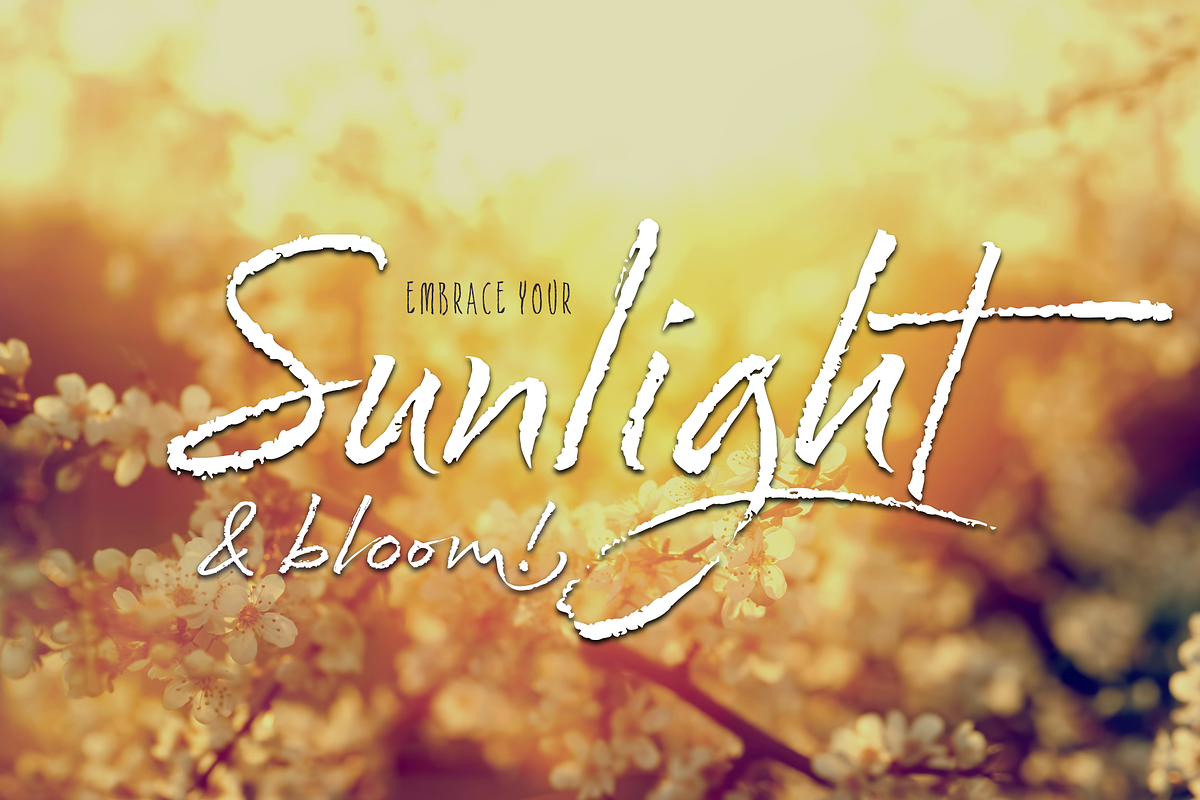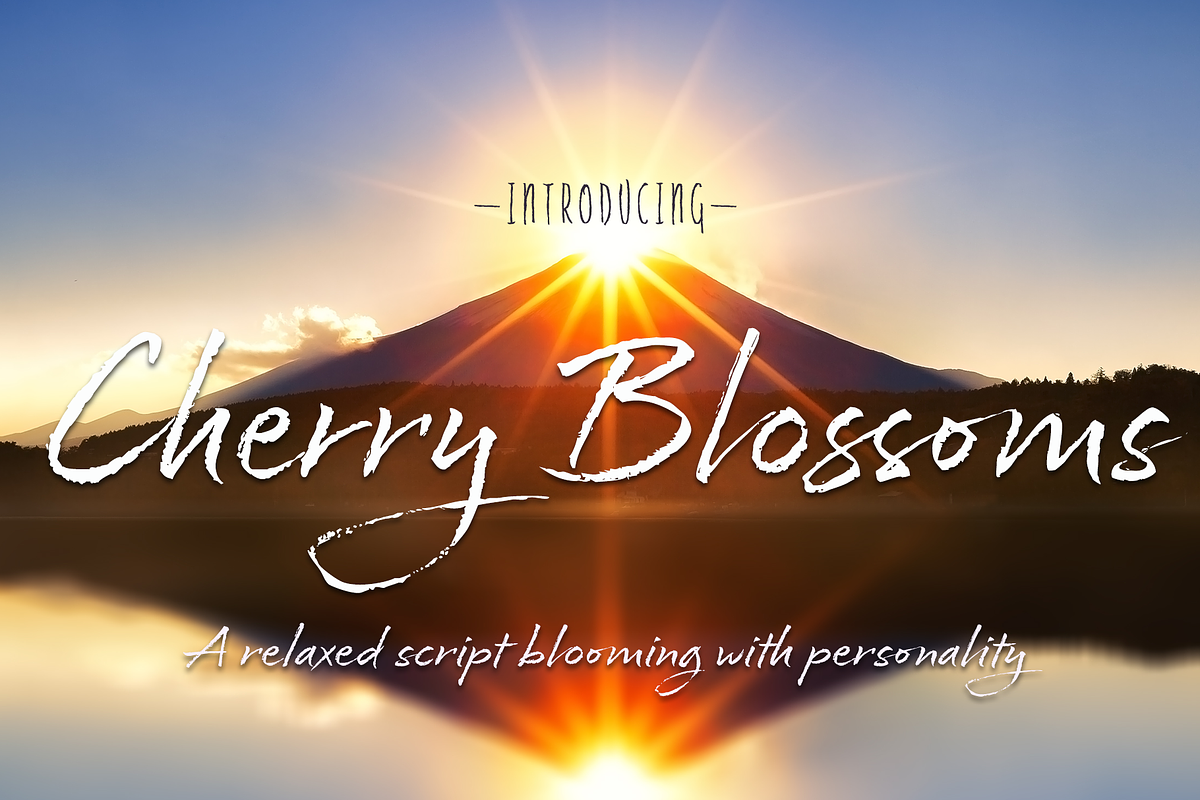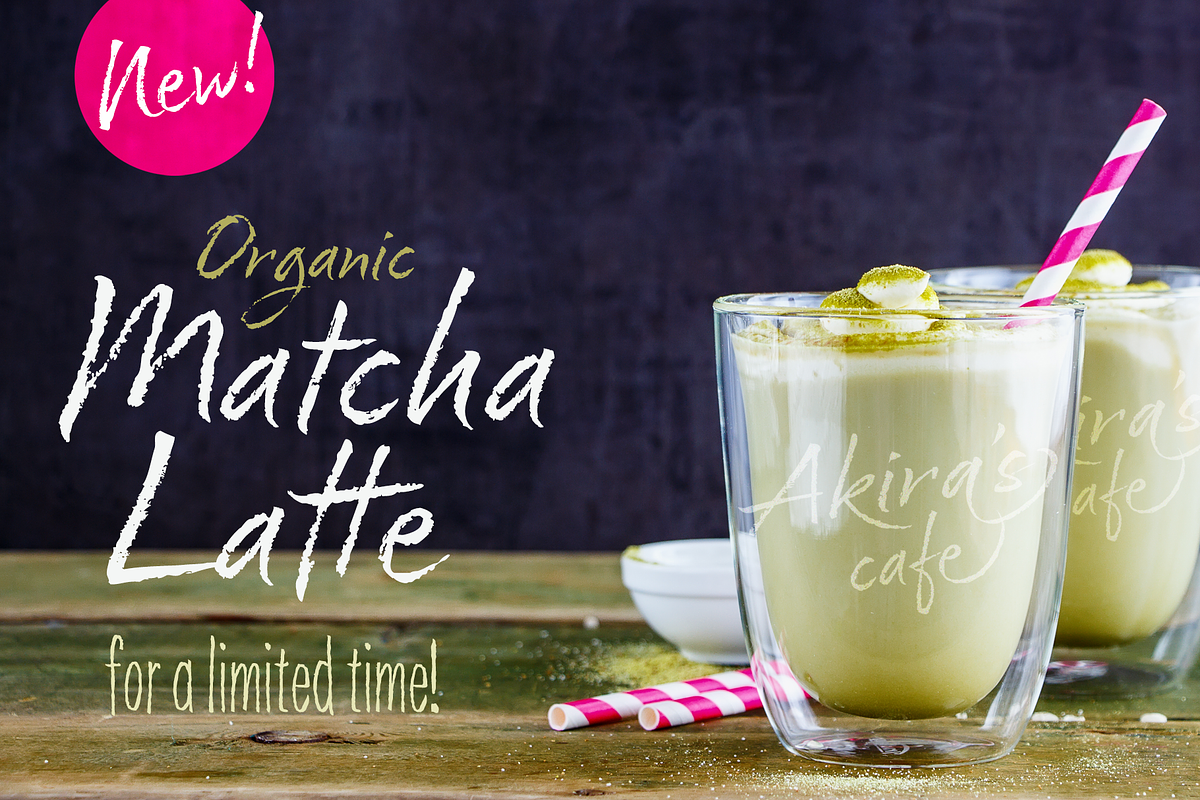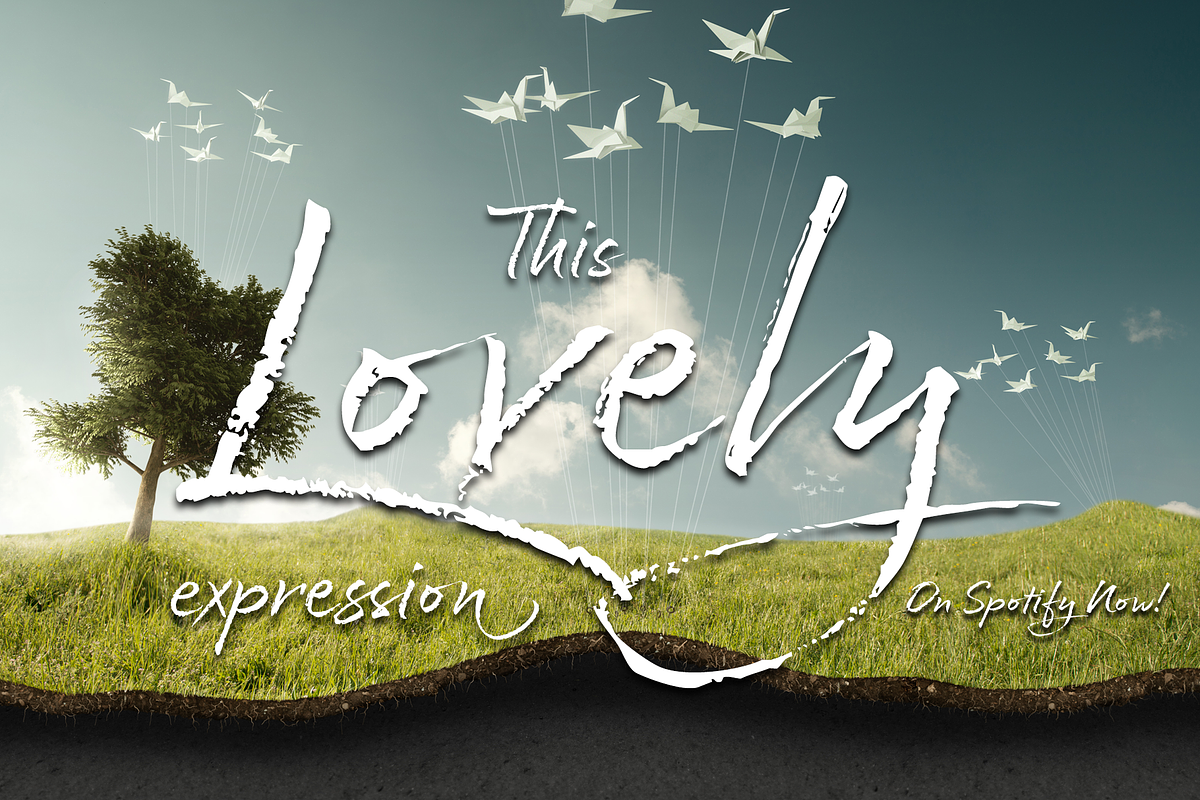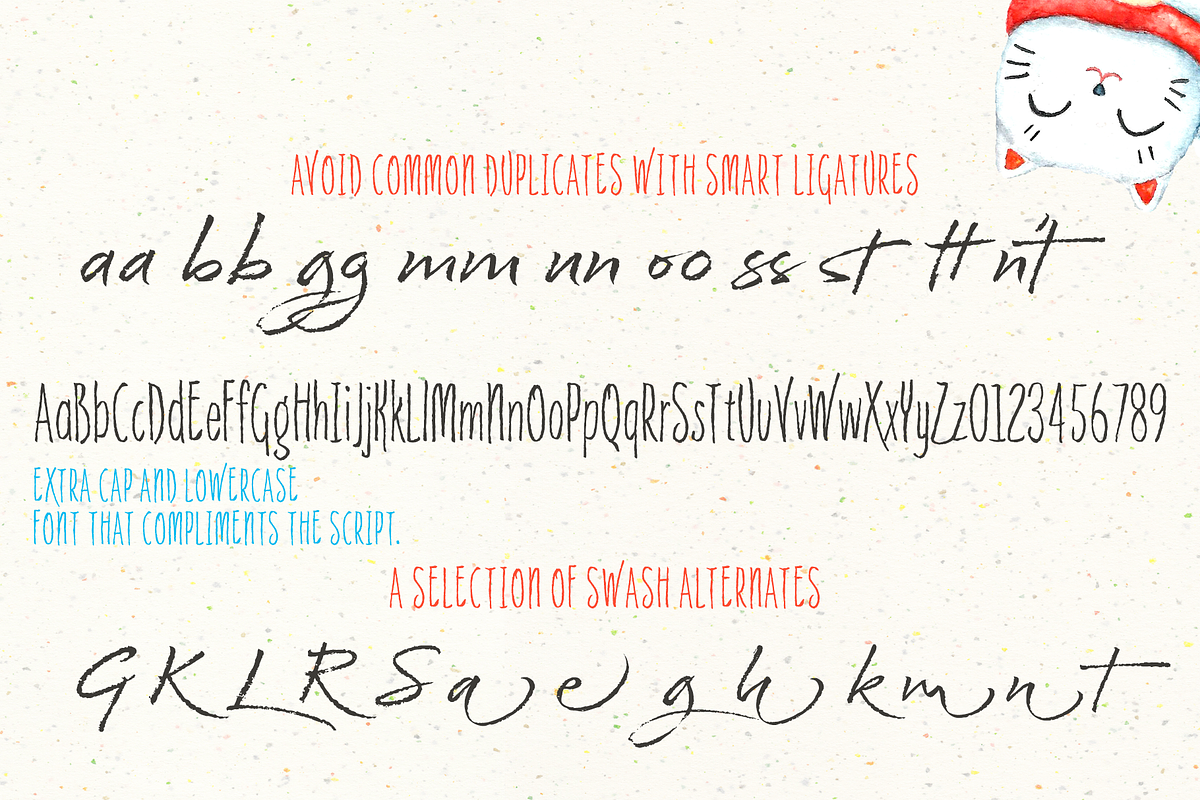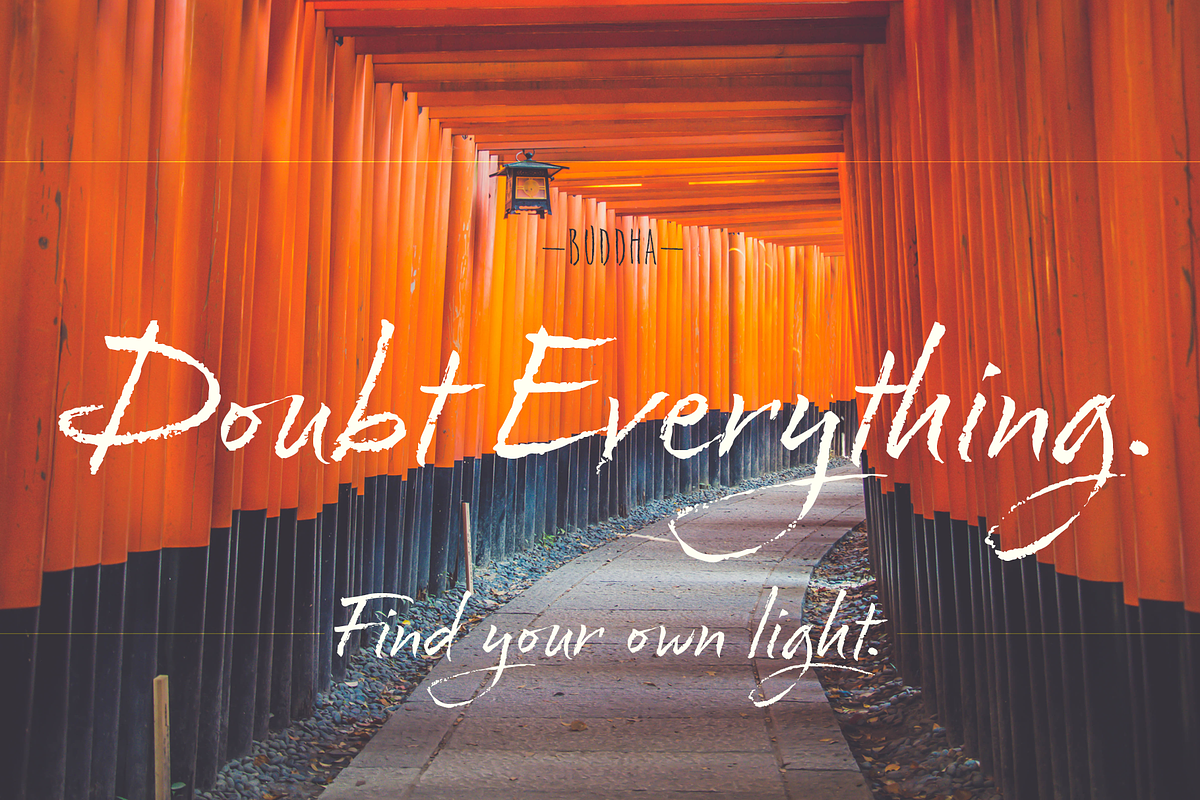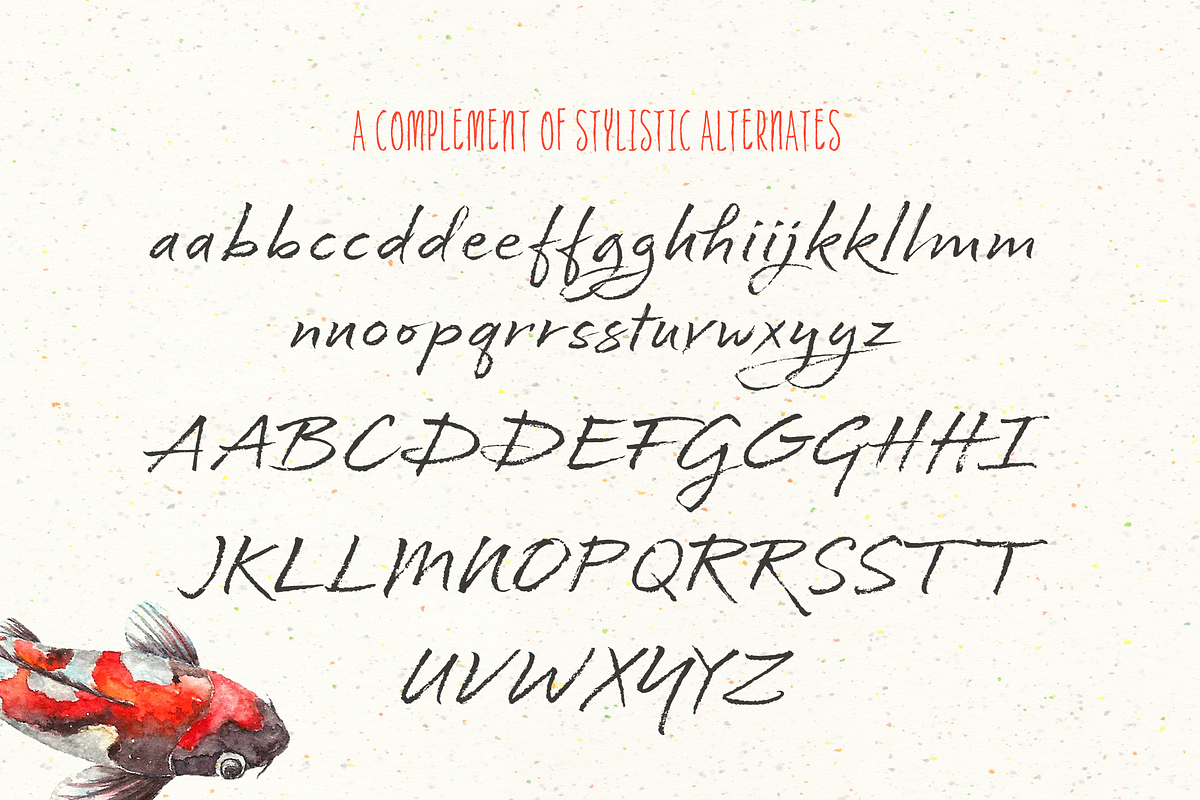
Cherry Blossoms Script Typeface
It’s spring and the Cherry Blossoms are in bloom… and so is the new typeface by Neil Summerour and Positype. Cherry Blossoms is the new relaxed script family in the same vein as Good Karma. Produced from hand and sumi brush of Neil Summerour, Cherry Blossoms is a natural brush textured font family. Cherry Blossoms is blooming with personality, reliable and genuine movements, and a wide range of letter options to befit any project needing an honest hand-lettered look.
Each typeface comes with an expansive set of stylistic alternates (upper AND lowercase), that harmonize wonderfully when you have the Opentype Ligature feature active. Additionally, special double-letter smart ligatures have been produced for specific combinations in need of more expressive flair, as well as a few swashes that work with the economical strokes originally produced from the sumi brush.
To further expand the usefulnesss of this bright script, a separate Caps/Lowercase font has been added that provides the simple contrast needed to bring the script fonts forward.
Rather than limit the personality of this script, various styles have been produced to compliment the original Regular… Wide and Tight as well as the afforementioned Simple fonts are included in hopes of helping you find the perfect variation needed for your composition.
As part of Neil Summerour &Positype's Relaxed Script Font Series, this typeface features a number of OpenType features that includes a number of Stylistic, Swash, and even Titling alternates. These typefaces are expertly craft and perfect for any use where you are wanting a personal or casual touch, including: invitations, weddings, social media, packaging, branding, stationery, and print advertising.